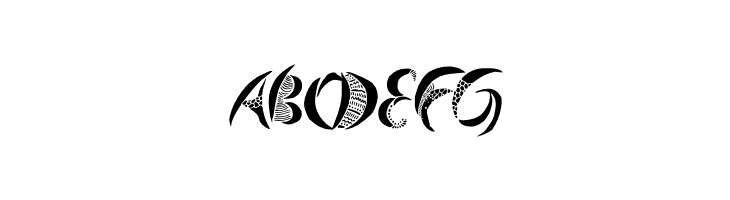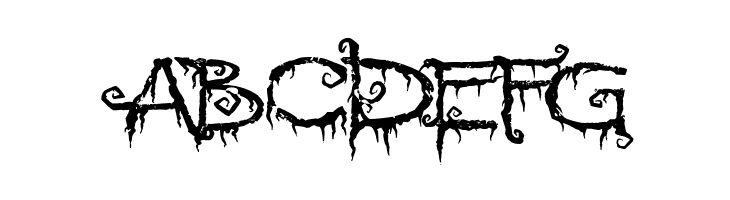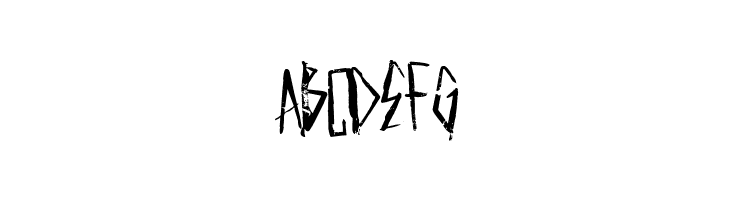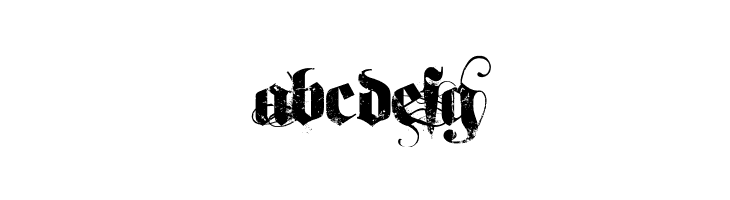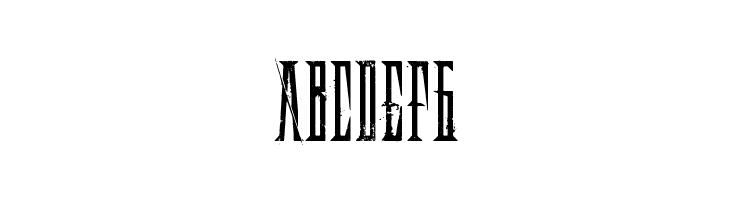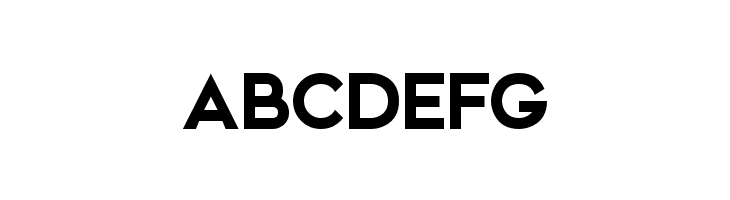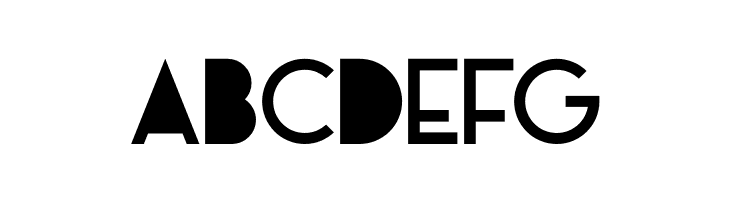
An elegant serif font with decorative swirls and flourishes.
A gothic, decorative font with dripping, jagged edges and thorn-like extensions.
A decorative font with a dripping, organic style, perfect for bold, eye-catching designs.
An ornate and decorative font with intricate swirls and flourishes.
A chaotic, graffiti-inspired font with jagged, textured characters.
An edgy, grungy font with jagged, irregular strokes and a rebellious vibe.
A gothic and grunge font with ornate flourishes and distressed textures.
A bold, distressed font with a rugged, edgy appearance.
A bold, distressed font with tall, narrow letterforms and a gritty, weathered texture.
A bold, distressed font with sharp, angular edges and a gritty texture.
A bold, distressed gothic-style font with sharp, angular lines and a rugged texture.
A decorative and artistic font with intricate patterns and dynamic flow.
A chaotic, glitchy font with overlapping, distorted letterforms and a dynamic, scribbled style.
A bold, geometric, and decorative font with a futuristic style.
A playful, hand-drawn font with elongated, whimsical letterforms.
A decorative and whimsical font with intricate curls and flourishes.
A bold, modern sans-serif font with geometric lines and strong visual impact.
A bold, geometric font with a modern and clean style.
A bold, geometric sans-serif font with a modern and clean design.
A bold, playful, hand-drawn font with rounded, organic shapes.
A playful, hand-drawn font with a quirky, uneven style.
A playful, bold, hand-drawn font with a friendly and informal style.
A bold, playful font with thick, rounded strokes and a friendly appearance.
A playful, hand-drawn font with a textured, scribble-like appearance.
An ornate and decorative font with elaborate swirls and flourishes.
A bold, geometric font with decorative snowflake patterns.
A bold, gothic-inspired font with sharp, angular lines and intricate details.
A bold, decorative font with gothic and rebellious elements.
A whimsical and decorative font with playful serifs and artistic details.
A bold, playful font with rounded, hand-drawn characters.
A playful, hand-drawn font with a bold and whimsical style.